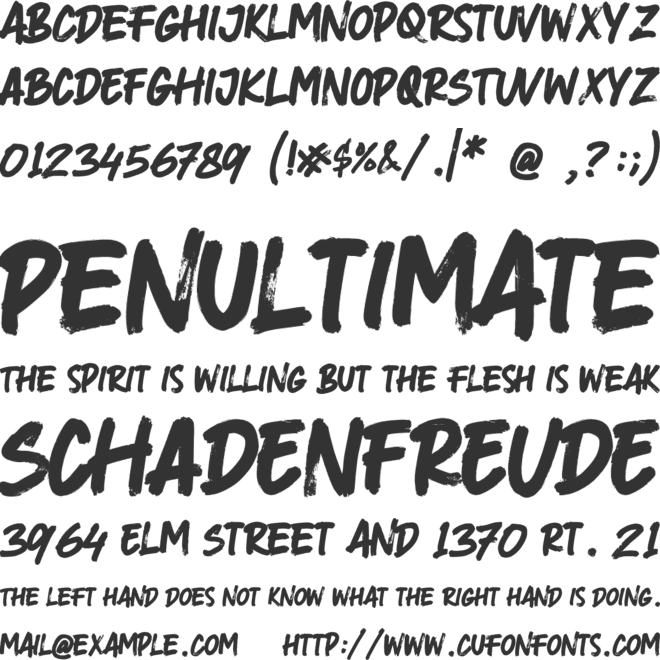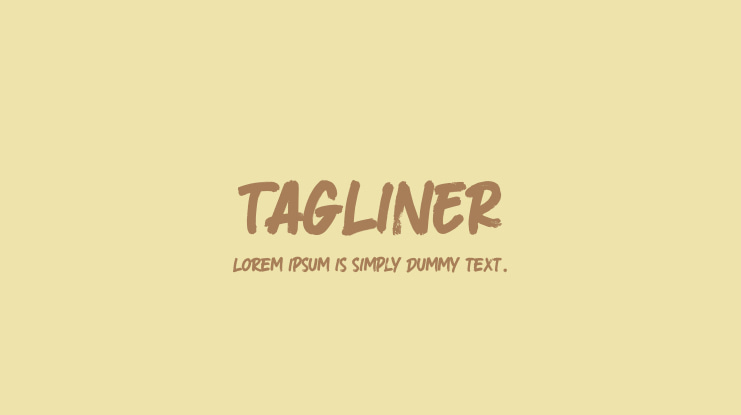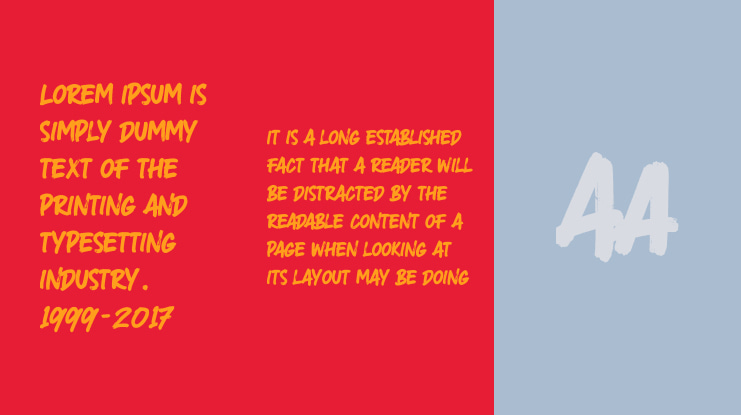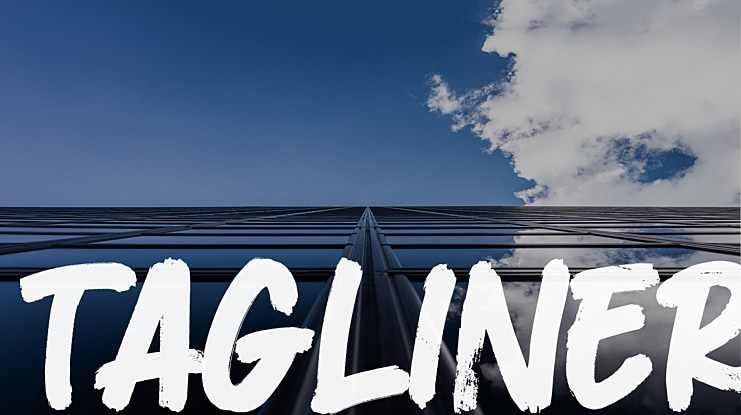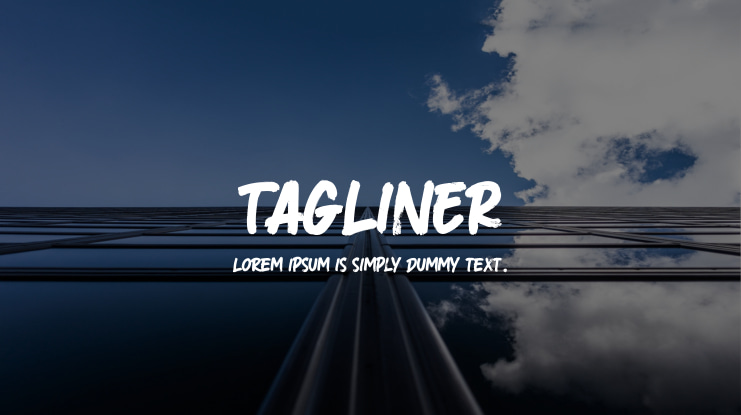
TAGLINER Font Family
TAGLINER is a hand-written all caps brush font. It includes 2 sets of capitals uppercase and undercase, so you can combine each other to create more possibilities. This font pack are included both OTF and TTF file with major western characters.
This font will be best suitable for Logo Design, Titles, Cards, Packaging, Product Labels, Digital & Print Poster, Big Display header/sub/annotations.